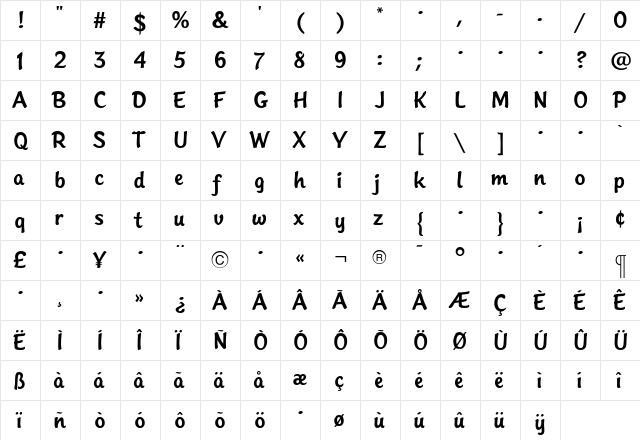
SinclairMediumScript Regular
Design Context for SinclairMediumScript Typeface
SinclairMediumScript brings a calligraphic fluidity to the page — its connecting strokes and expressive curves give it an unmistakably human quality.
Font Pairing: Combine SinclairMediumScript with a simple geometric sans for maximum contrast — the tension between flowing curves and clean structure is a classic typographic pairing.
Pro Tip: Pair SinclairMediumScript with a clean sans-serif for supporting text. The contrast between fluid script and geometric structure creates an elegant typographic hierarchy.